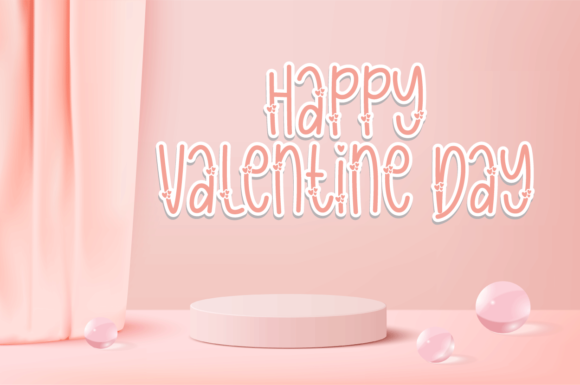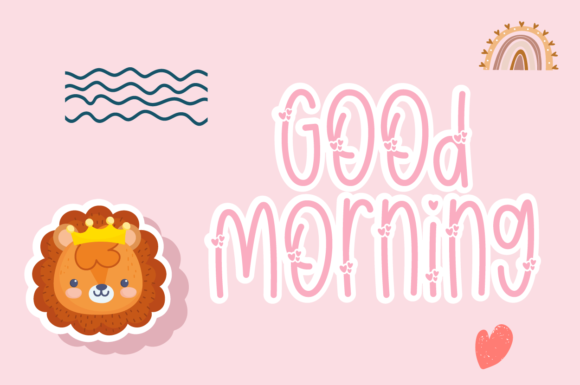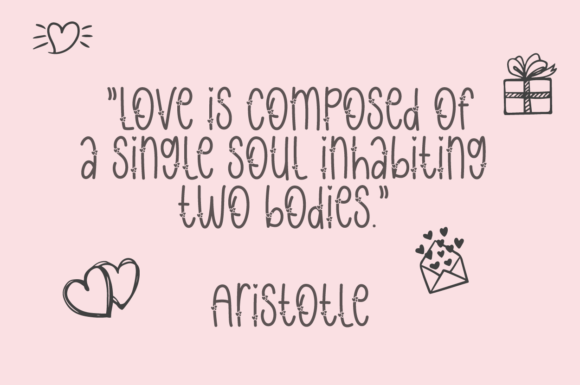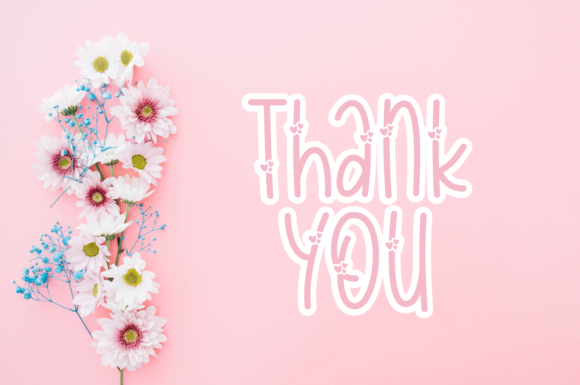
Introduction to Romantic Jenie Font
Have you ever stumbled upon a beautiful handwritten font that instantly sparks your creativity and makes you want to create something special? For me, it was the moment I discovered the Romantic Jenie Font. Its unique charm and loveliness captured my heart, and I knew I had to share it with fellow designers and creatives.
As a design enthusiast, I can attest that having access to high-quality fonts is a game-changer. The Romantic Jenie Font is a fantastic addition to any design resource collection, offering a versatile and friendly feel that’s perfect for a wide range of creative projects. Whether you’re working on a free download project or a paid commission, this font is sure to bring a touch of elegance and sophistication to your designs.
What sets the Romantic Jenie Font apart is its stunning visual appeal, making it an ideal choice for logos, business cards, quotes, and greeting cards. Plus, its transparent background feature allows for seamless integration with various design elements. Whether you’re a seasoned designer or just starting out, the Romantic Jenie Font is an invaluable asset that’s sure to elevate your creative projects to the next level.
Key Features of Romantic Jenie Font
- Unique characteristics: cursive, script, and handwritten styles, making it suitable for various creative projects, such as wedding invitations, greeting cards, and more.
- Perfect for designers and artists seeking a high-quality, free design resource with a romantic and elegant feel.
Honest Review: Romantic Jenie Font
I recently came across the Romantic Jenie Font, and I’m excited to share my thoughts on this lovely design resource. As a designer, I’m always on the lookout for high-quality fonts to elevate my creative projects.
What works well for me about this font is its elegant, whimsical feel, perfect for projects that require a touch of romance and sophistication. ✨ The font’s subtle curves and delicate details make it an excellent choice for wedding invitations, greeting cards, or any other design where you want to convey a sense of love and tenderness. I also appreciate that the font is available for free download, which is always a plus in my book.
The font has a transparent background, making it easy to work with and layer on top of other design elements. However, I did notice that the font is a bit limited in its character set, which might be a drawback for some designers. ⚠️ For example, it doesn’t include accented characters or special symbols, which could be a challenge for international projects or designs that require a wide range of characters.
Overall, I’m impressed with the Romantic Jenie Font’s quality and versatility. While it may have some limitations, it’s still a great addition to any designer’s toolkit, especially for creative projects that require a touch of romance and elegance.
- Perfect for wedding invitations, greeting cards, or other romantic projects
The Romantic Jenie Font is perfect for wedding invitations, baby showers, and other special occasions. You can also use it for branding and marketing materials, such as business cards and brochures.